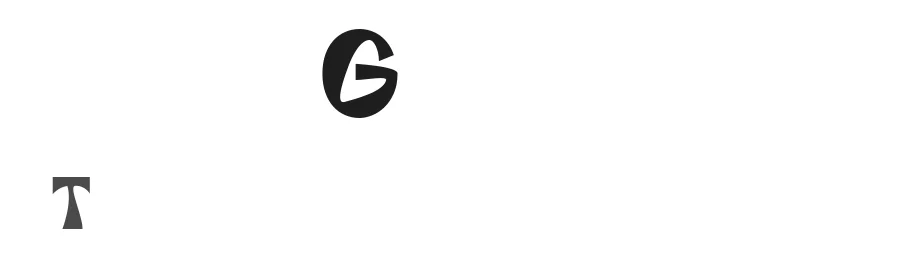
About East Aurora Font
| Designer | Putra Novembria Candra Kusuma |
East Aurora Font is a decorative font that shines as a display or heading face. Pair it with a clean sans-serif or serif font for body text β the contrast creates a clear hierarchy while the two styles stay balanced and easy to read.